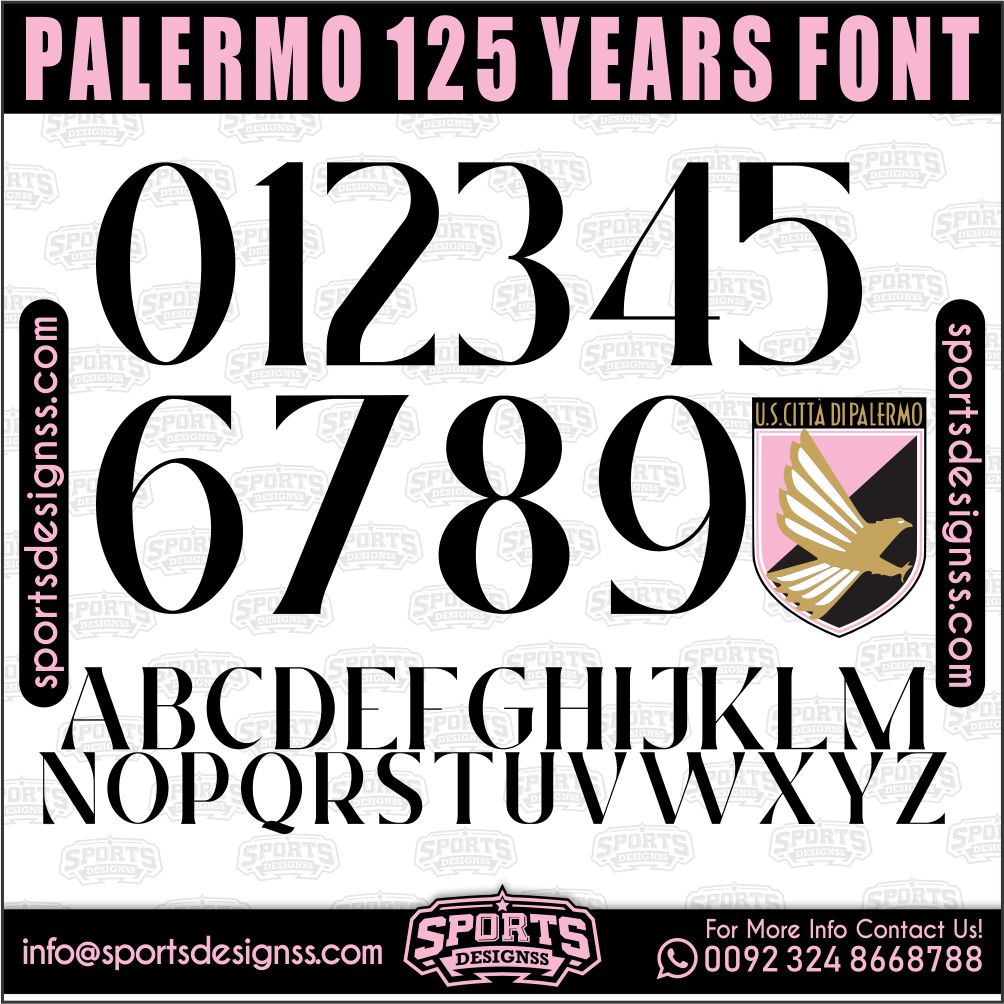
Download the PALERMO 125 YEARS 2026 Font by Sports Designss – a premium football jersey font inspired by modern kits.
Recreate authentic football jersey designs with the PALERMO 125 YEARS 2026, built for realistic, match-ready sports visuals.
Upgrade your designs with the PALERMO 125 YEARS 2026, a premium football jersey font inspired by modern professional sports aesthetics.